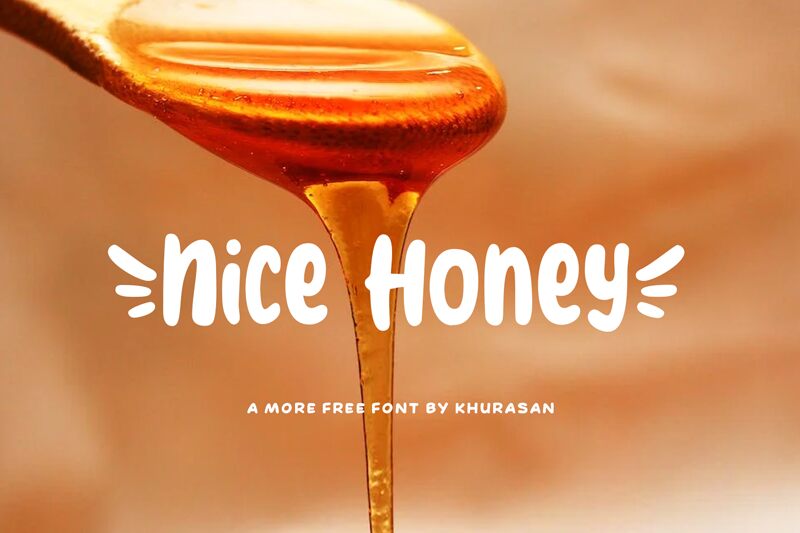
Nice Honey
Nice Honey, a bold and captivating display font by Khurasan, is the perfect choice for projects in need of a playful and animated touch. With its cartoon-style design, this font brings to life any design element it graces. Whether you're working on children's books, comic strips, logo designs or social media graphics, Nice Honey will surely make your creations pop with its vibrant and energetic personality. Its bold weight adds an extra punch to ensure your message stands out effortlessly. Unleash your creativity with Nice Honey and craft delightful visuals that leave a lasting impression.